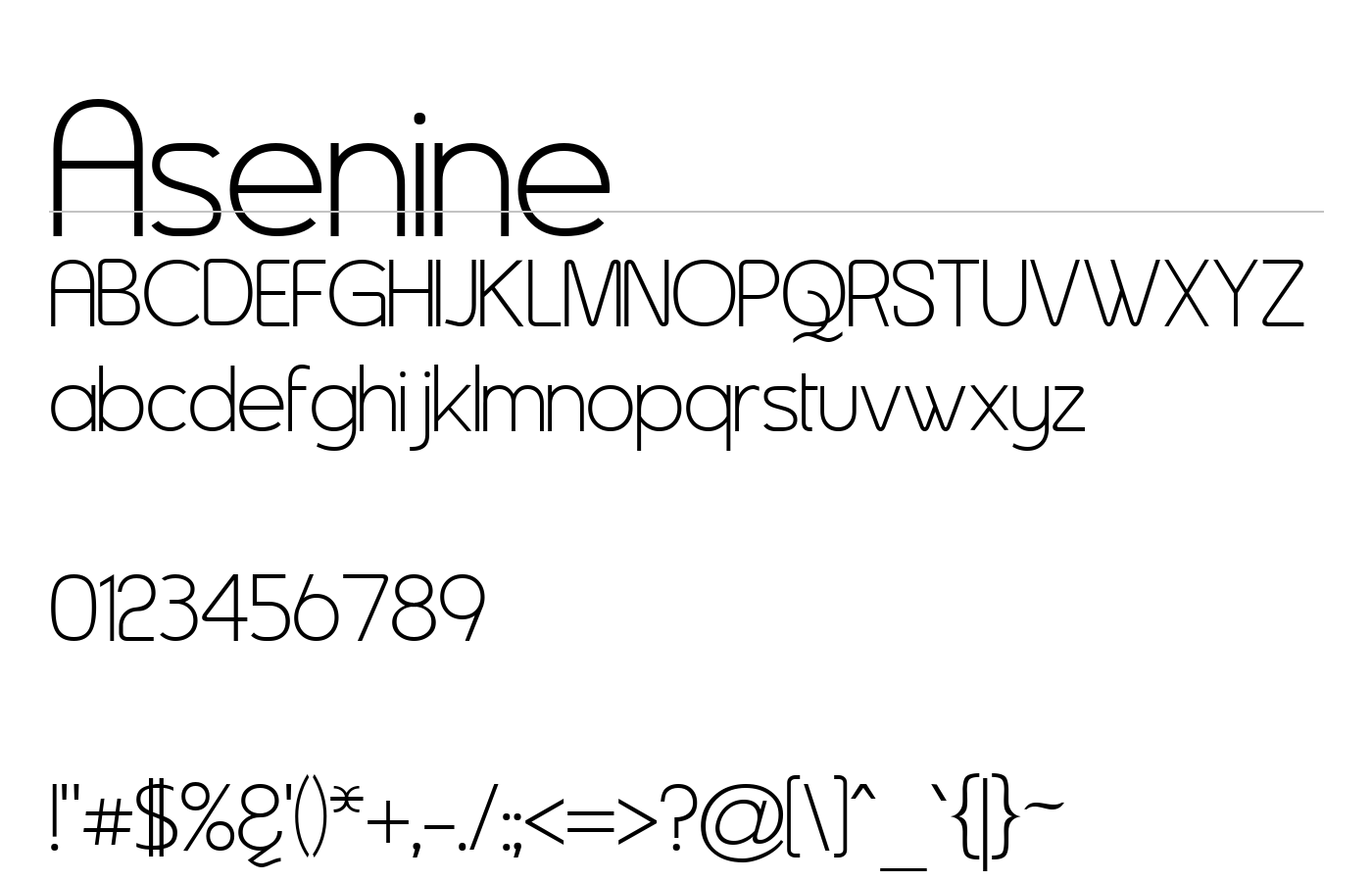
Asenine is a sleek, modern sans serif font characterized by its ultra-thin, geometric letterforms with a tall x-height and minimal stroke contrast. Its clean lines and distinctive details, such as the curved tail of the Q and the single-story a and g, give it a contemporary and elegant feel perfect for stylish branding, editorial headlines, and minimalist design projects that want to convey sophistication with a light, airy touch.
Asenine Font
About Asenine Font